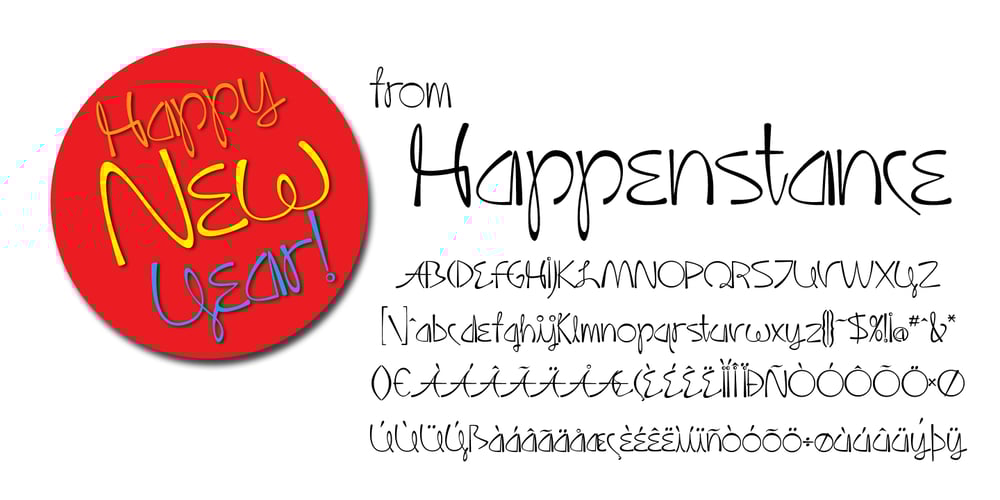
Happenstance Font Family was designed by Randy Harris and published by Just My Type. Happenstance contains 1 styles and family package options. Happenstance came out of a play session with Bezier curves with a sense of fun built into its being. First came play, then came work. Thomas Edison once said,”Creativity is 1% inspiration and 99% perspiration.” Nikola Tesla thought the opposite. In this case, what started as inspiration took a lot of perspiration to corral into a usable font. So maybe the reality is a) different for different people or b) somewhere in the middle. Just sayin’.